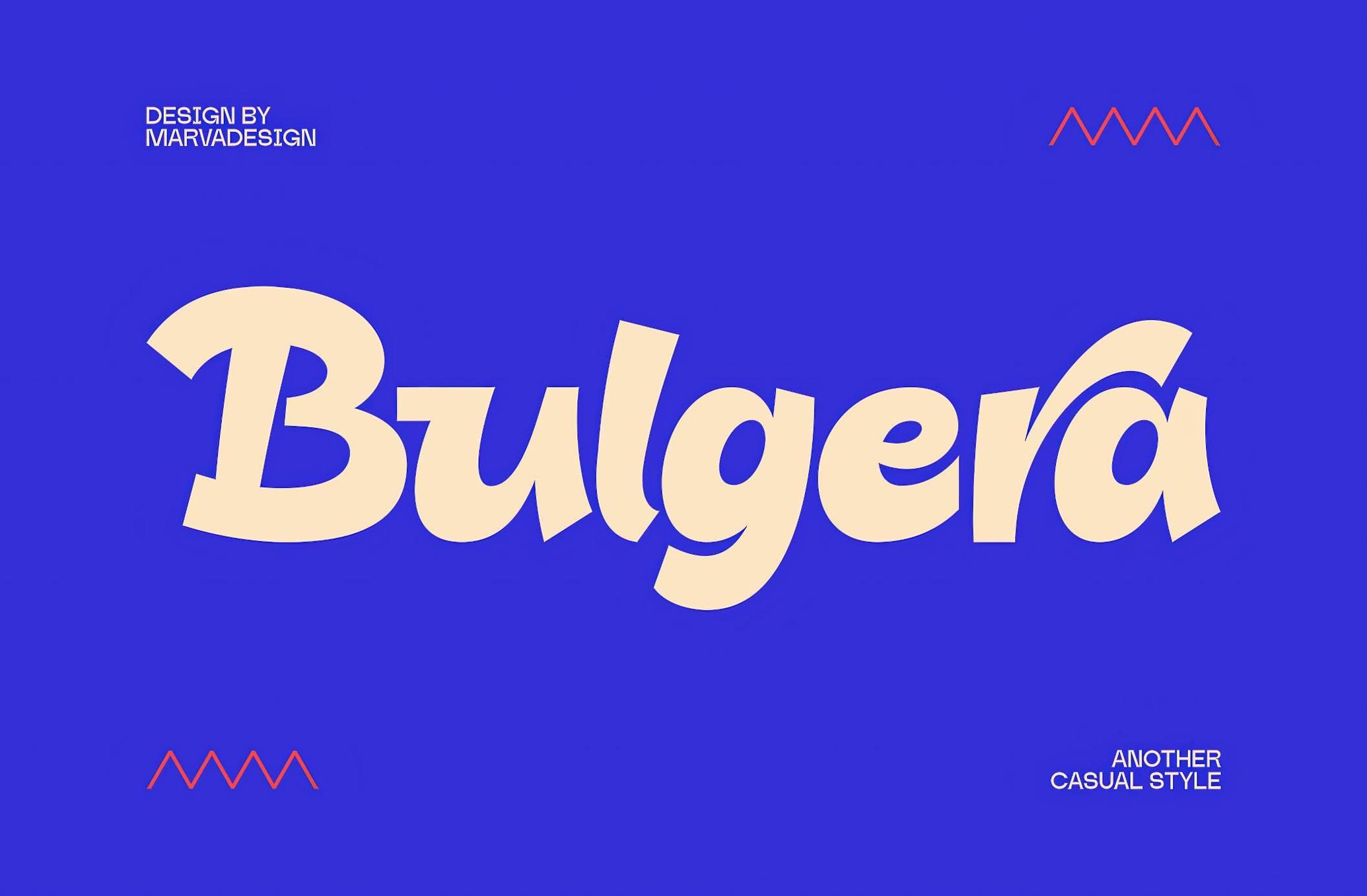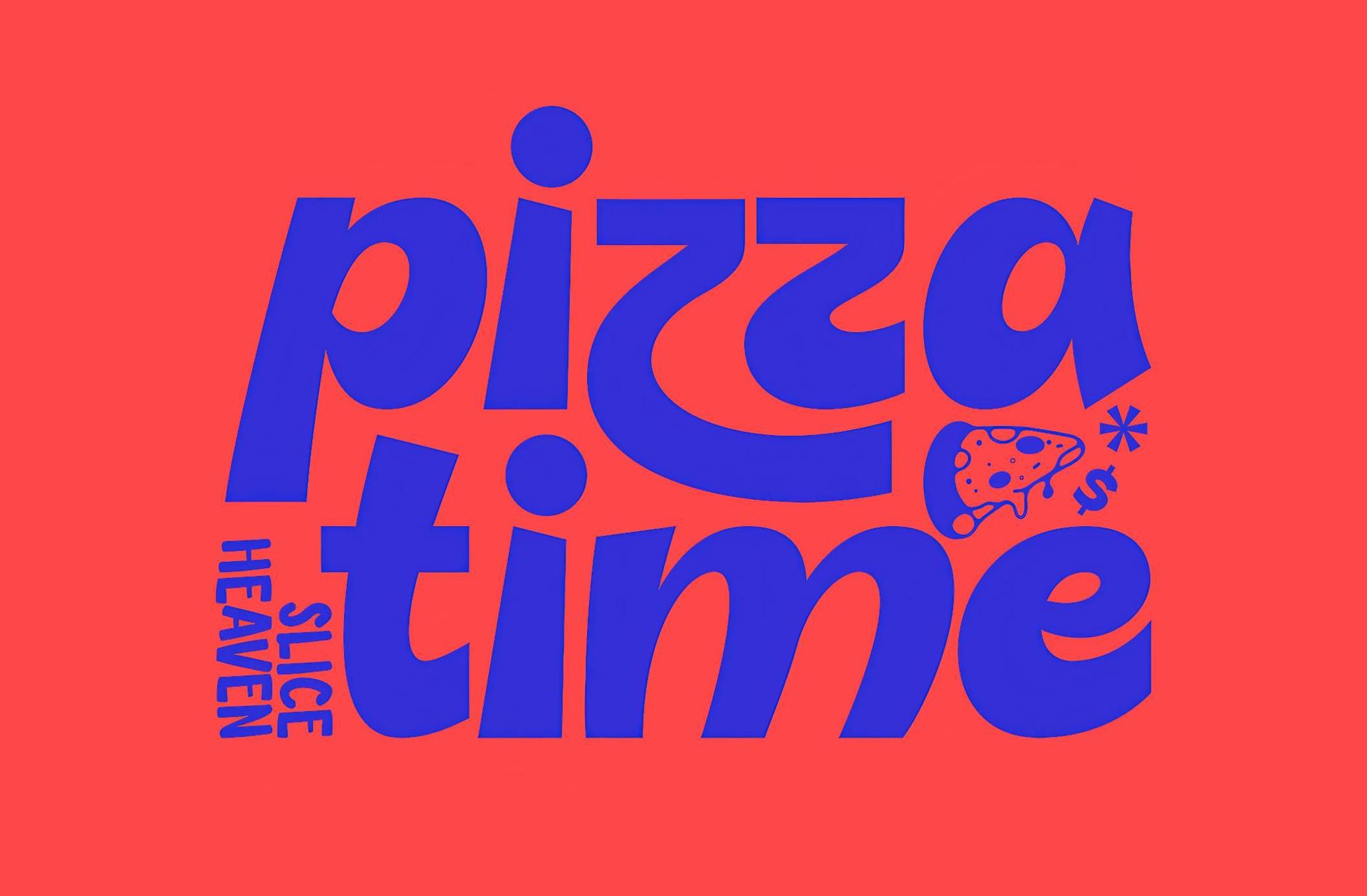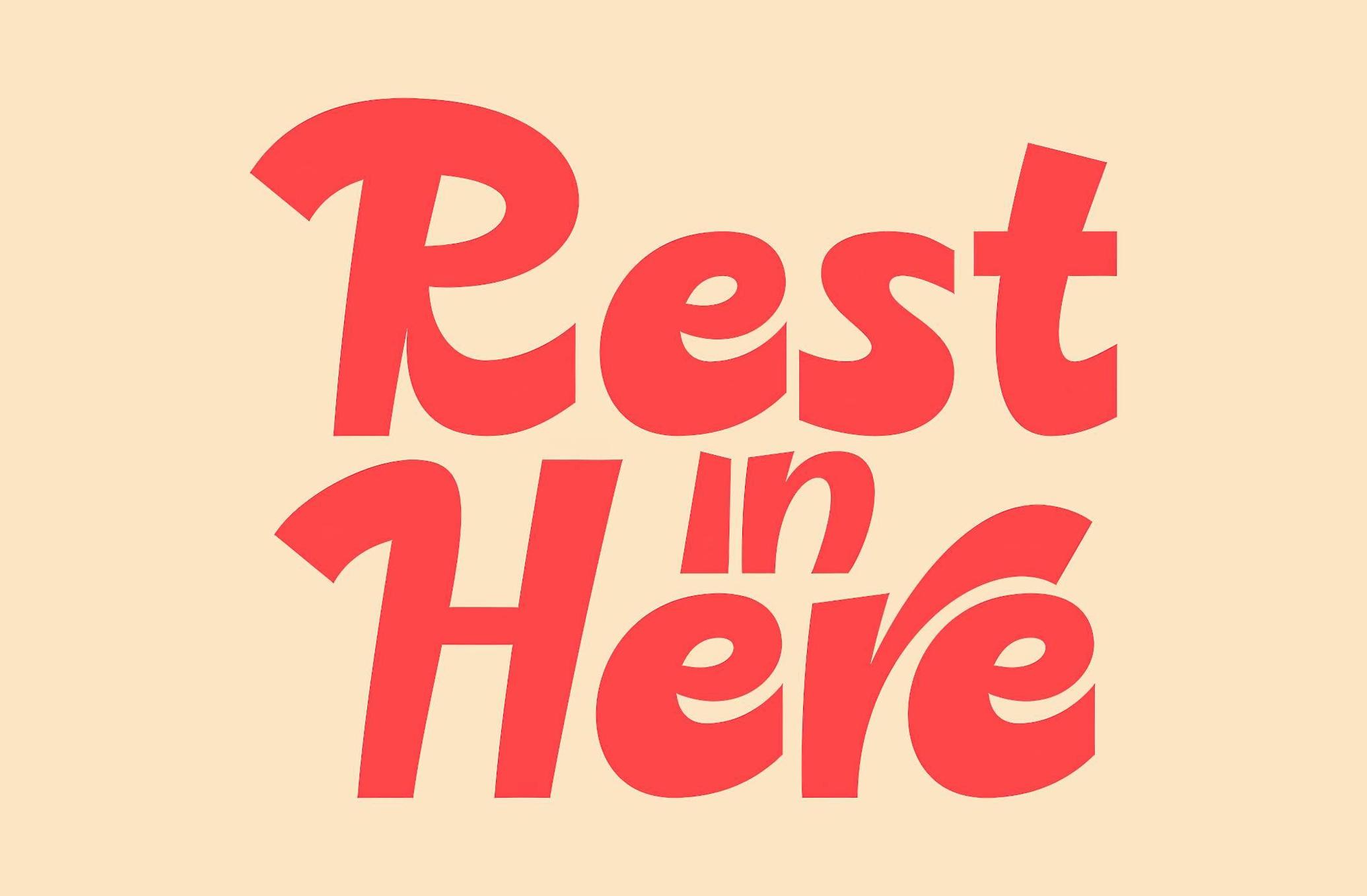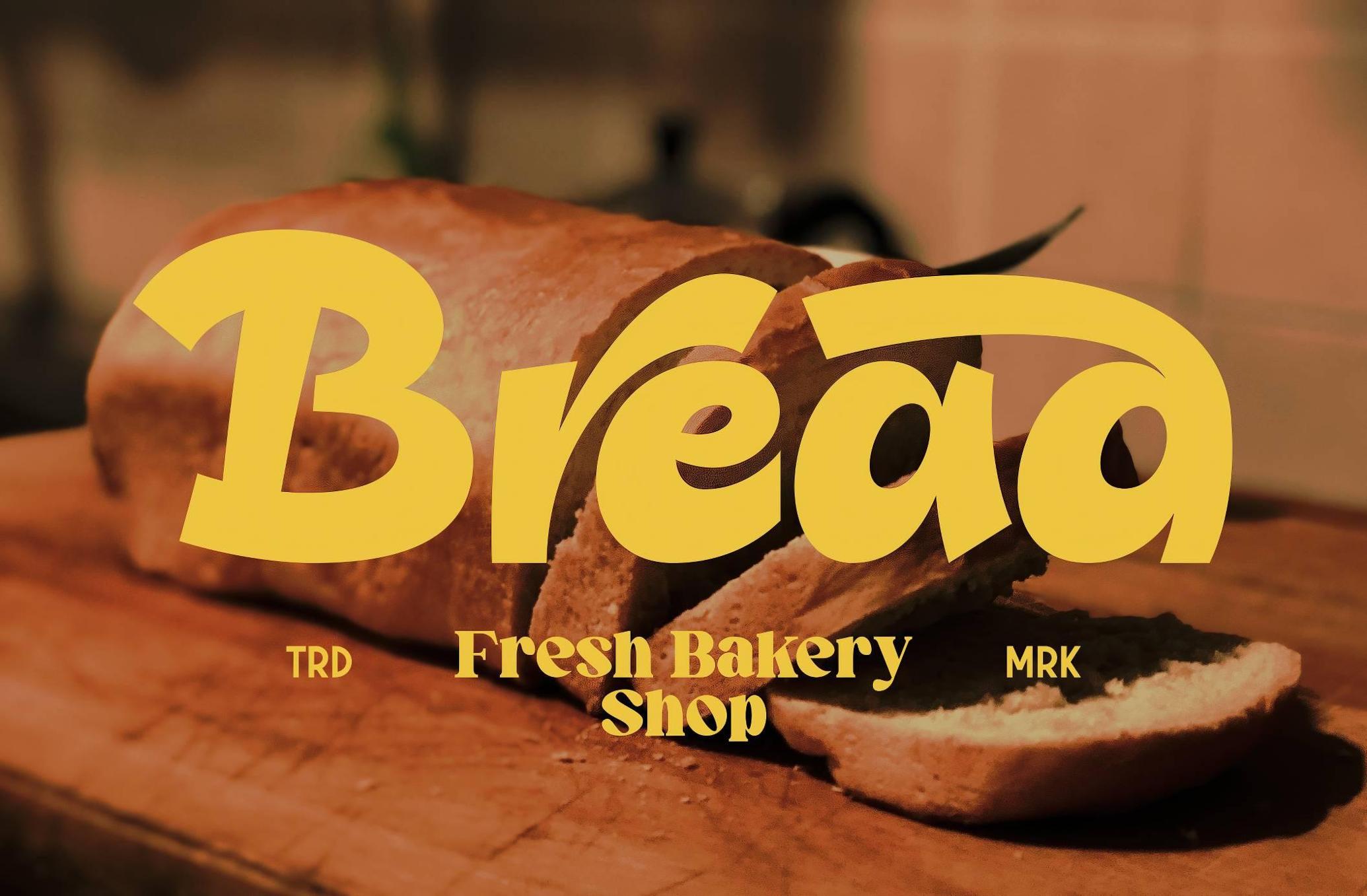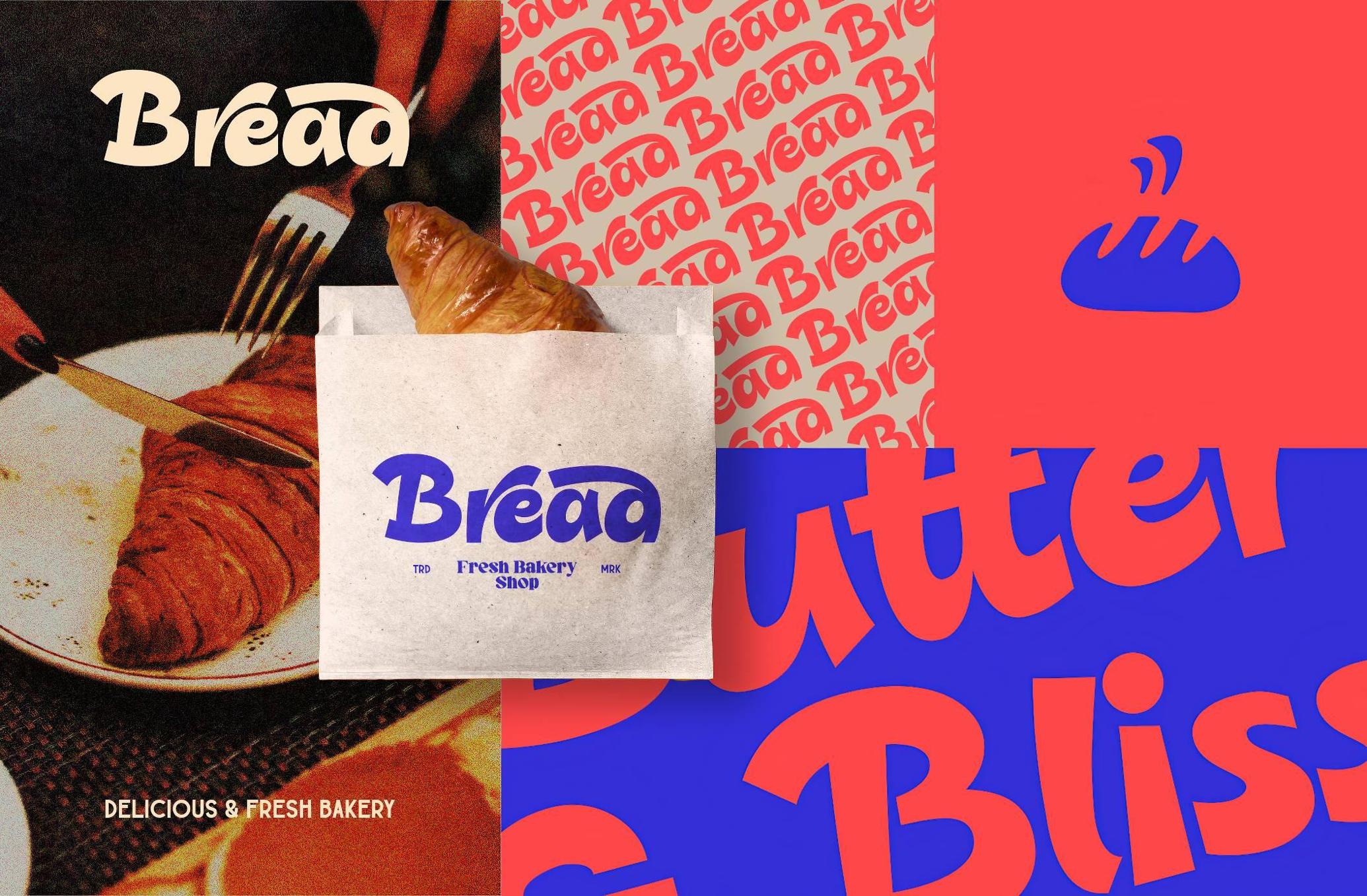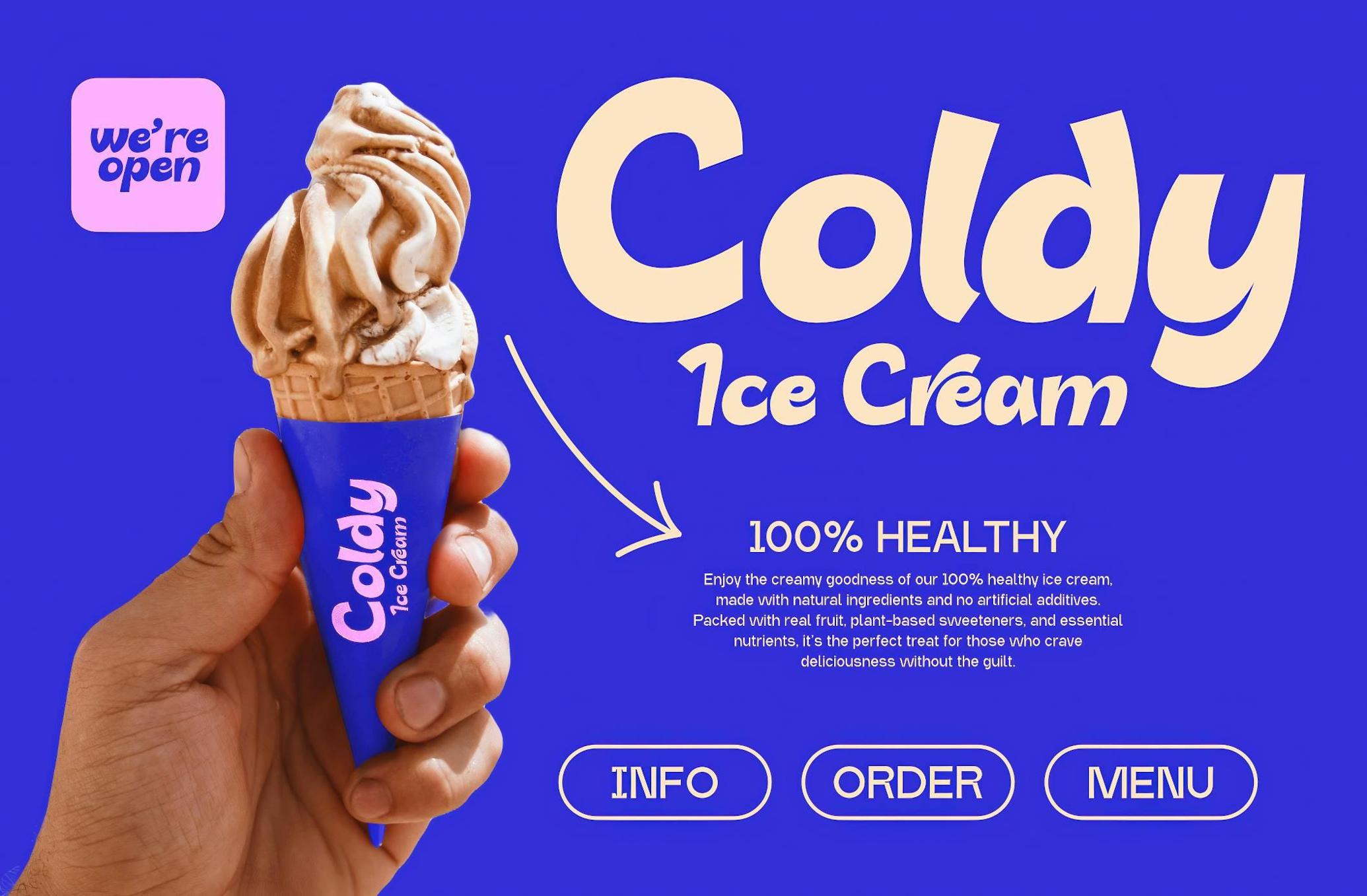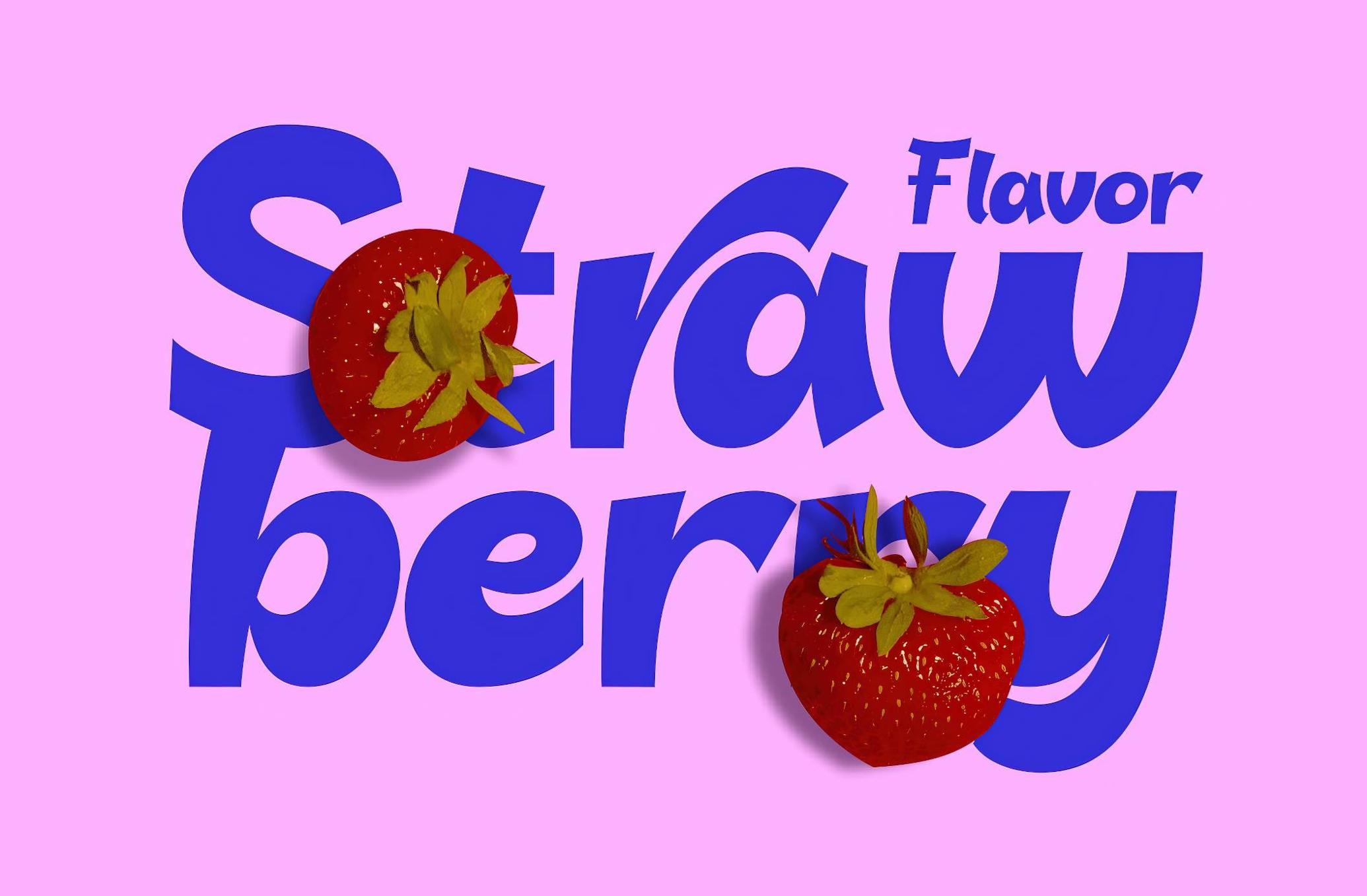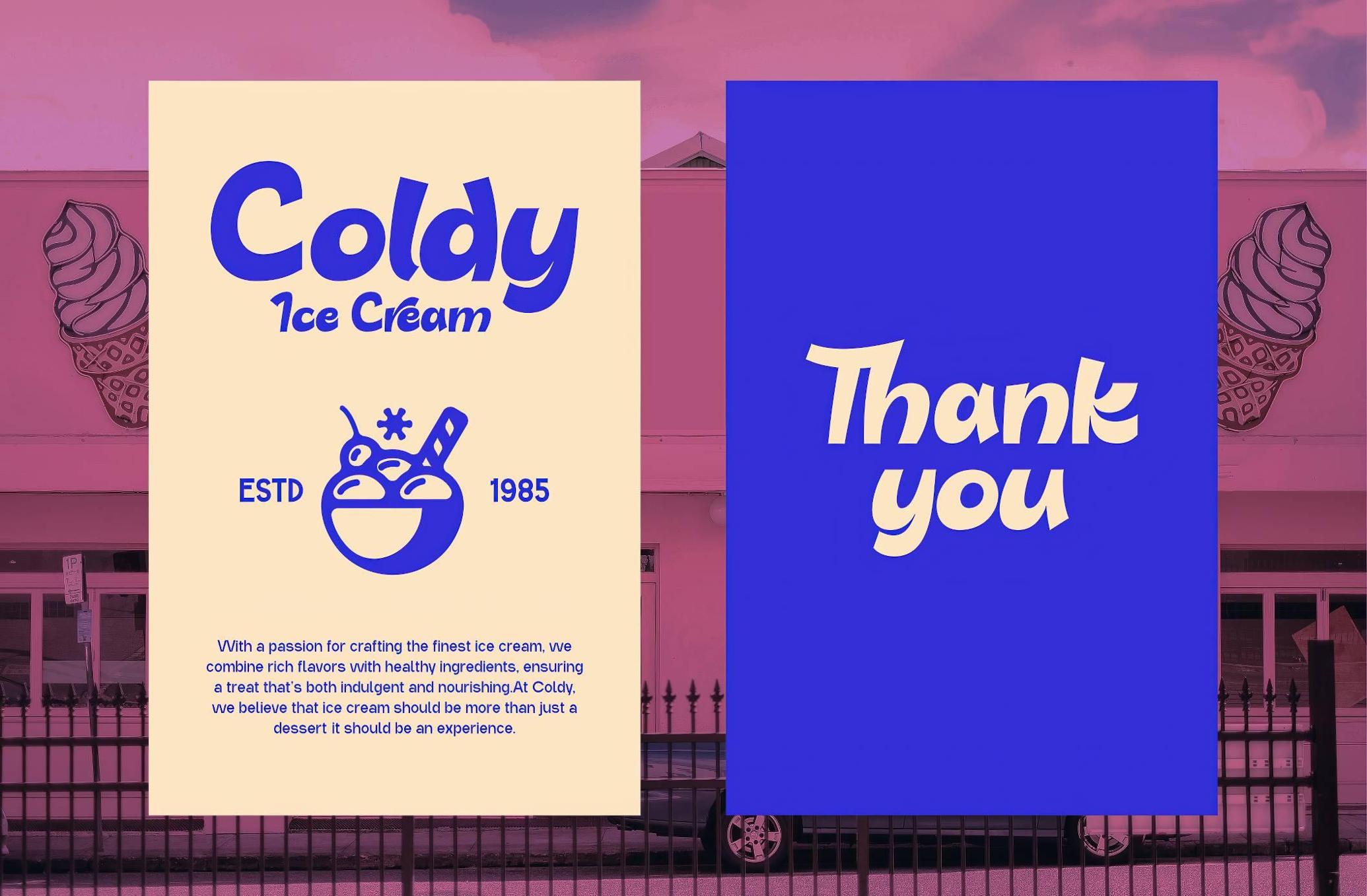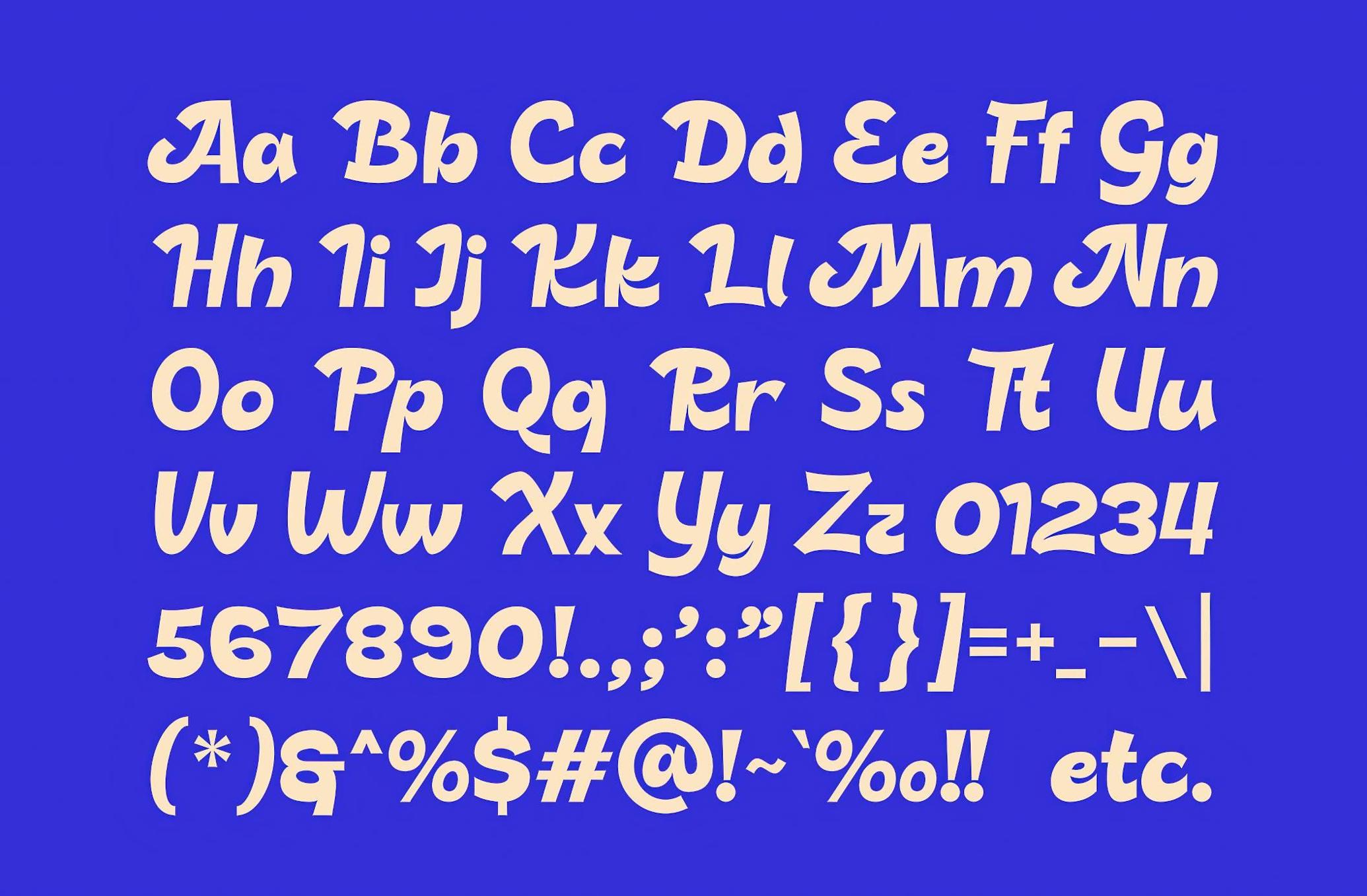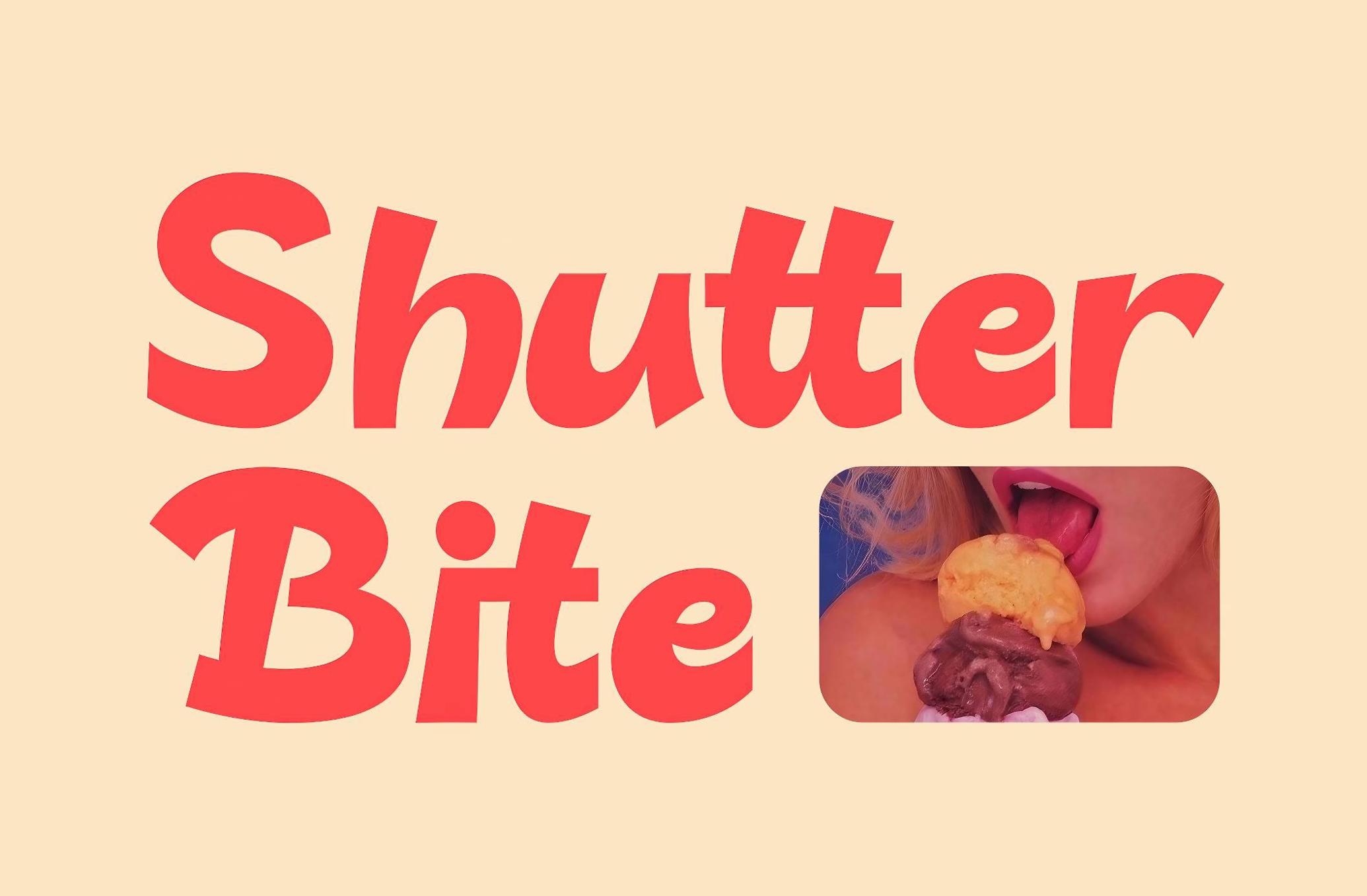
Bulgera
Bulgera plays by its own rules, leaning into quirky angles and big, buoyant curves that feel hand-drawn but precisely measured. Its bold strokes and slightly slanted structure bring together the friendliness of a marker pen with the clarity of a modern display font.
There’s rhythm in how each letter stretches and swoops — from the playful loop of the ‘g’ to the confident punch of the ‘B’. With multilingual support, ligatures, and alternates in the mix, Bulgera makes sure your type always has the right attitude. It’s built for projects that need personality without sacrificing polish: food packaging, casual branding, lifestyle merch, or anything that deserves a wink with its welcome.